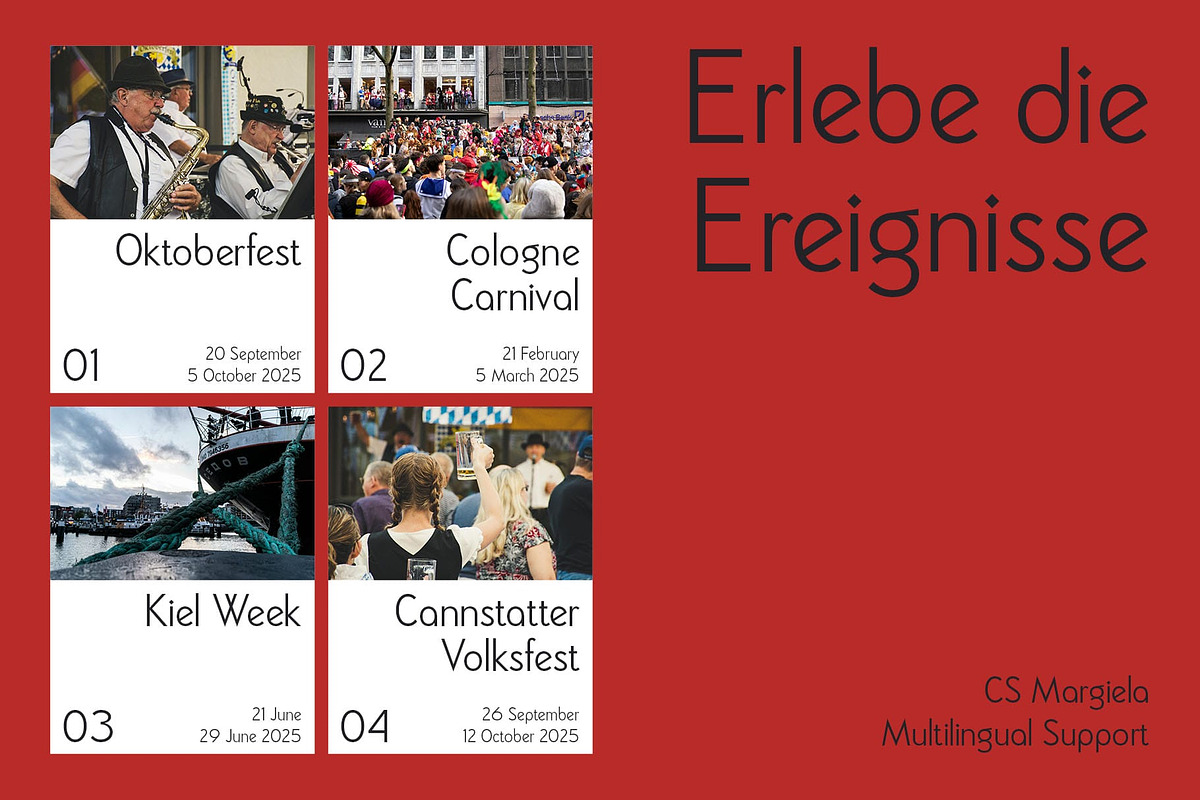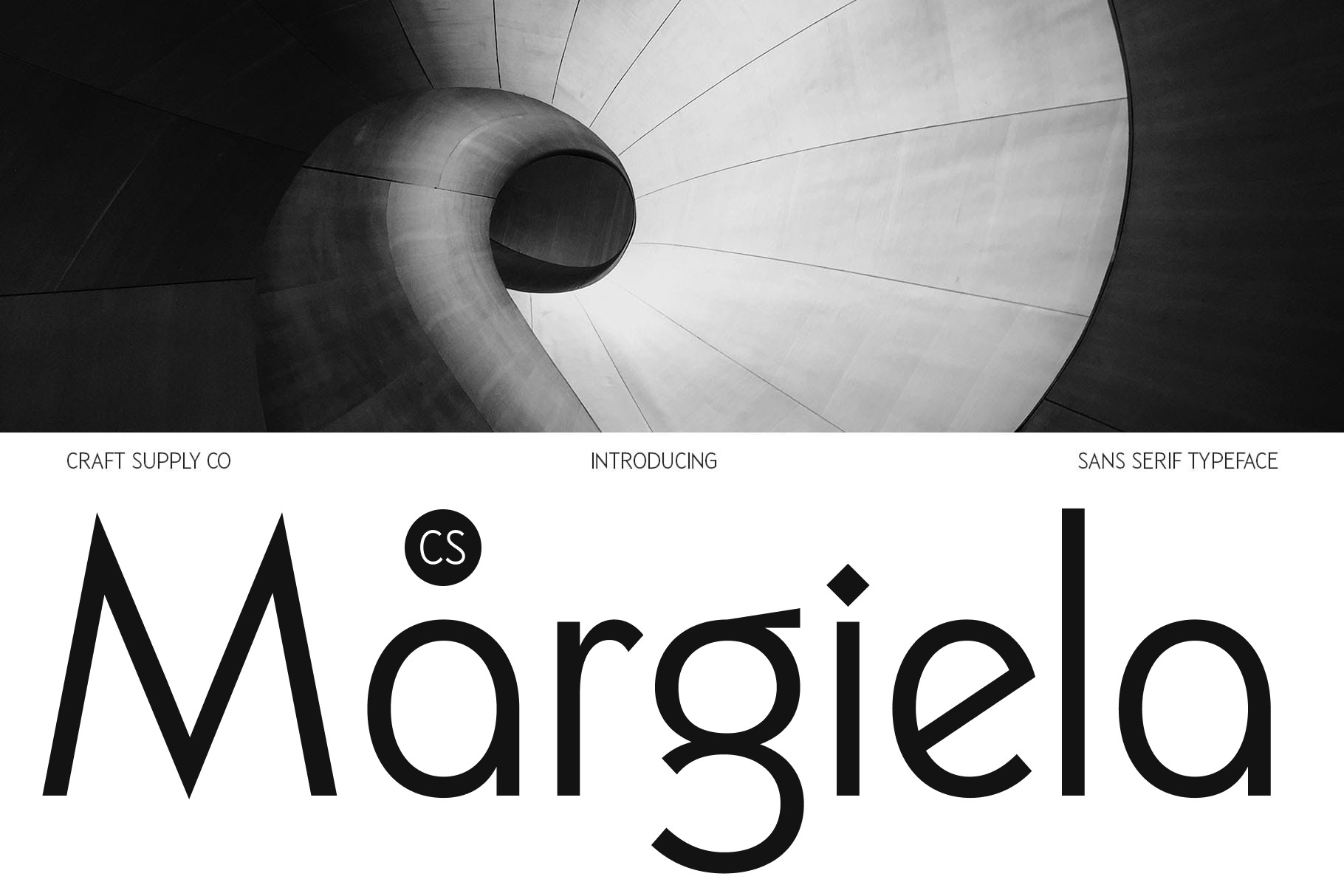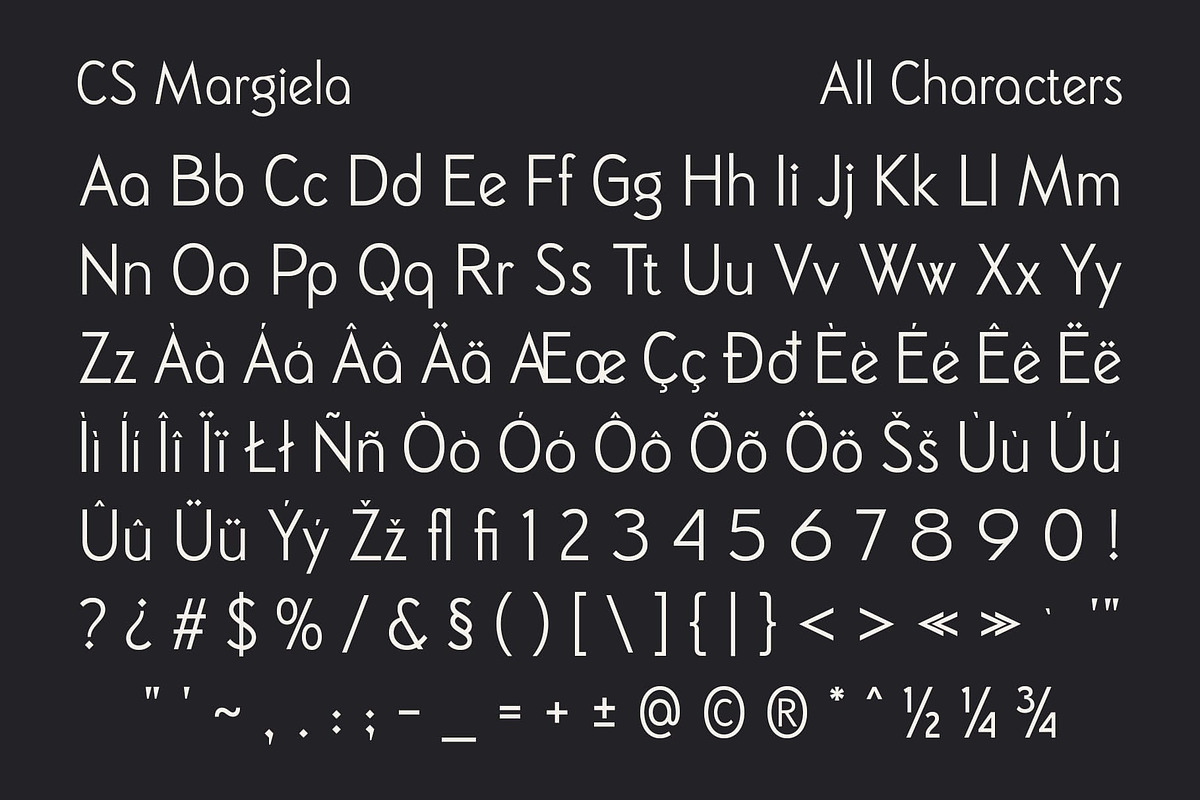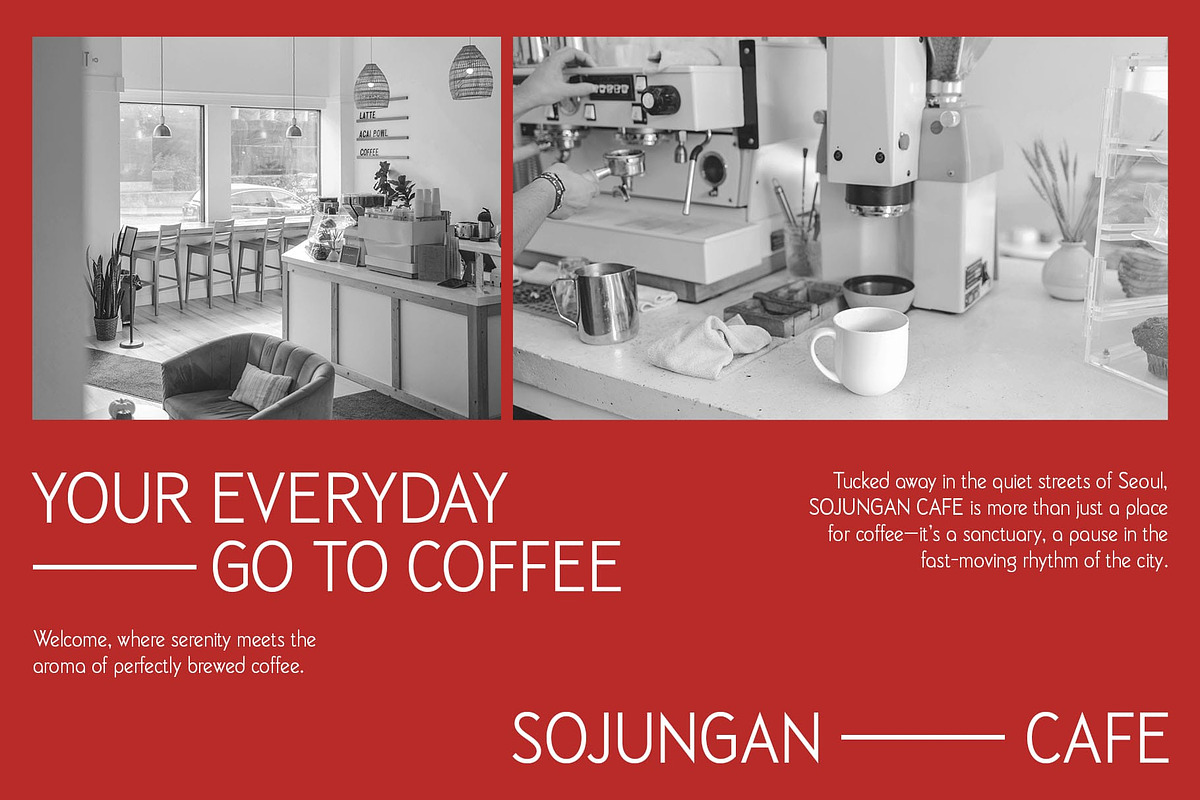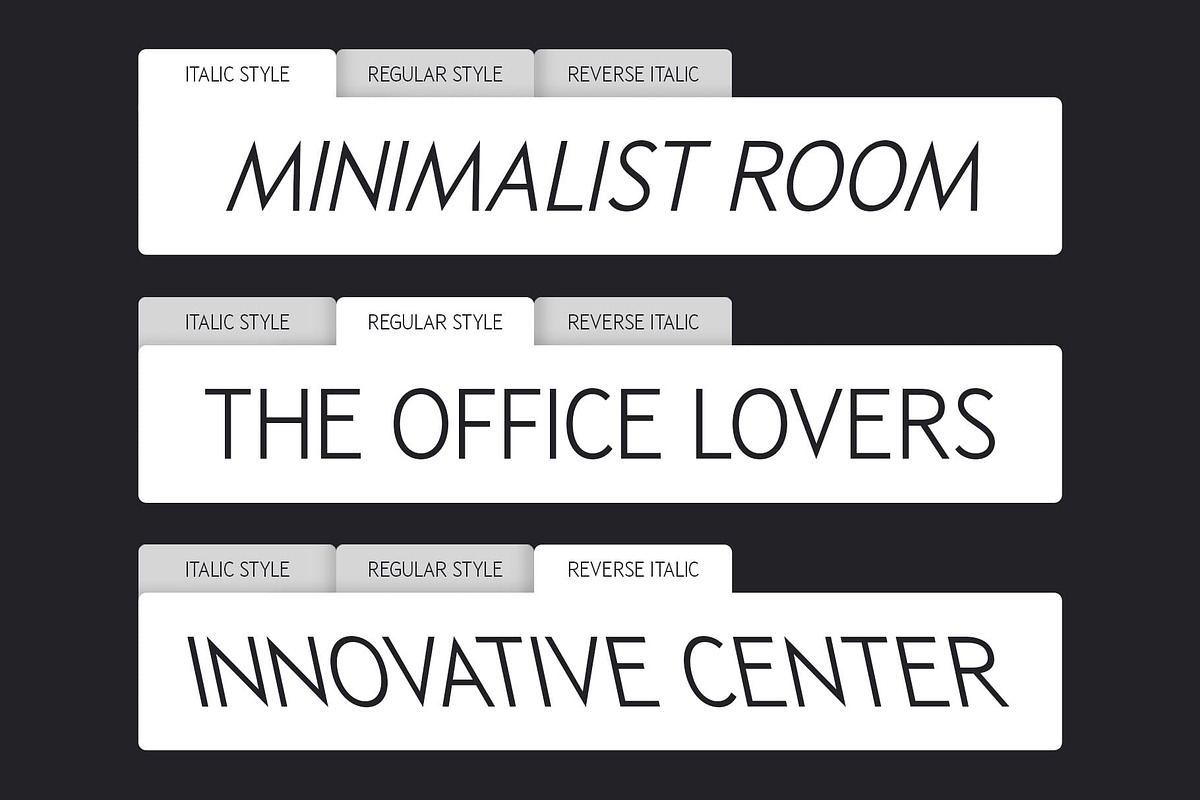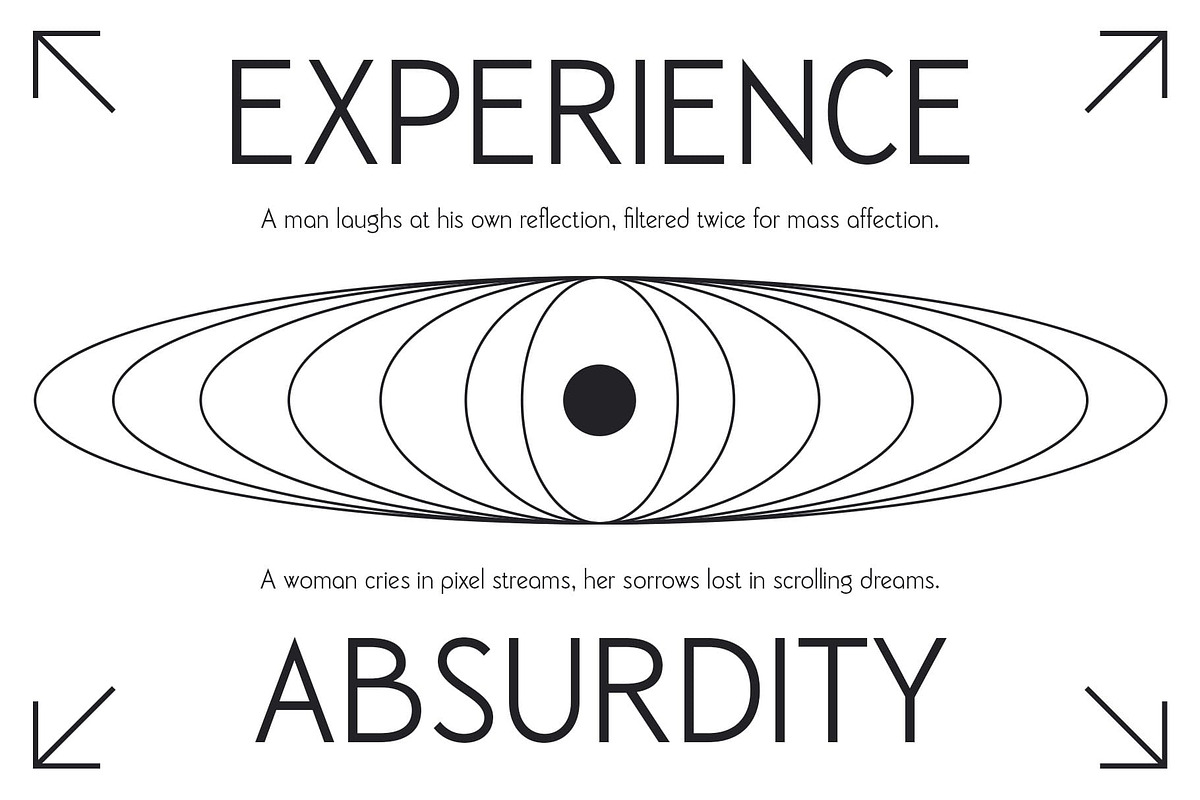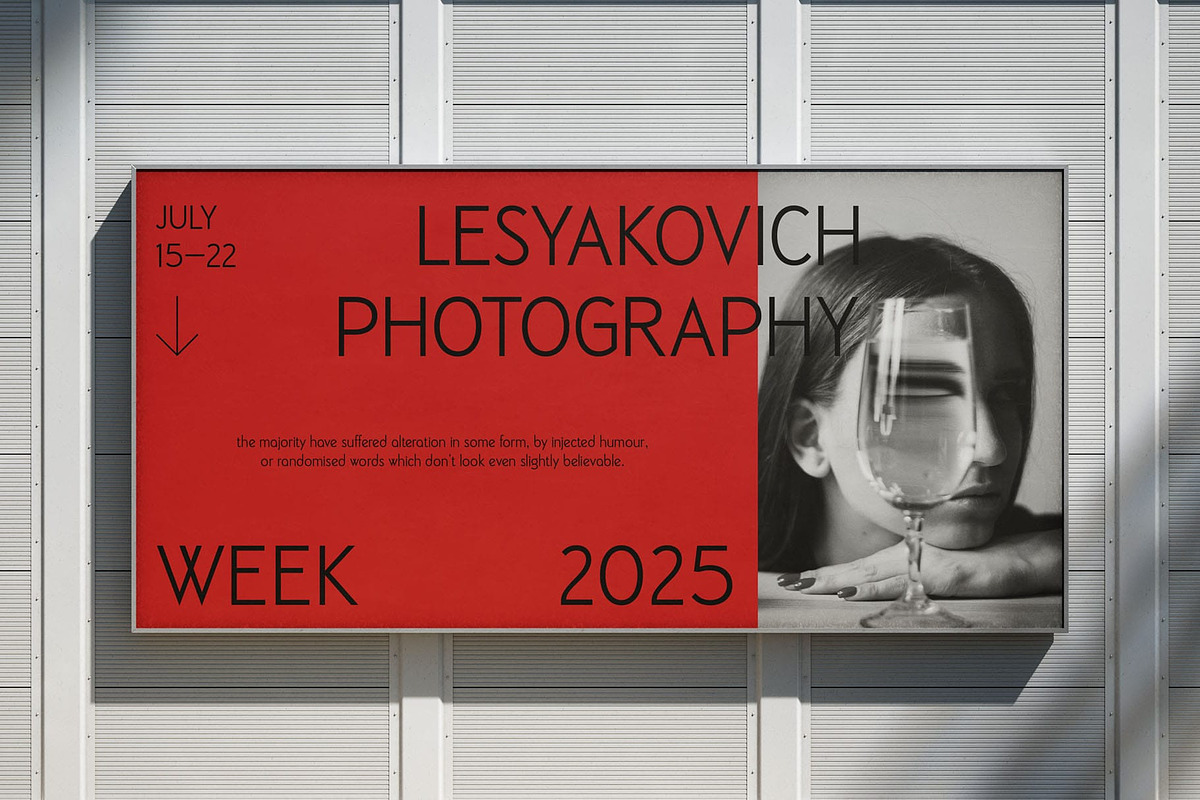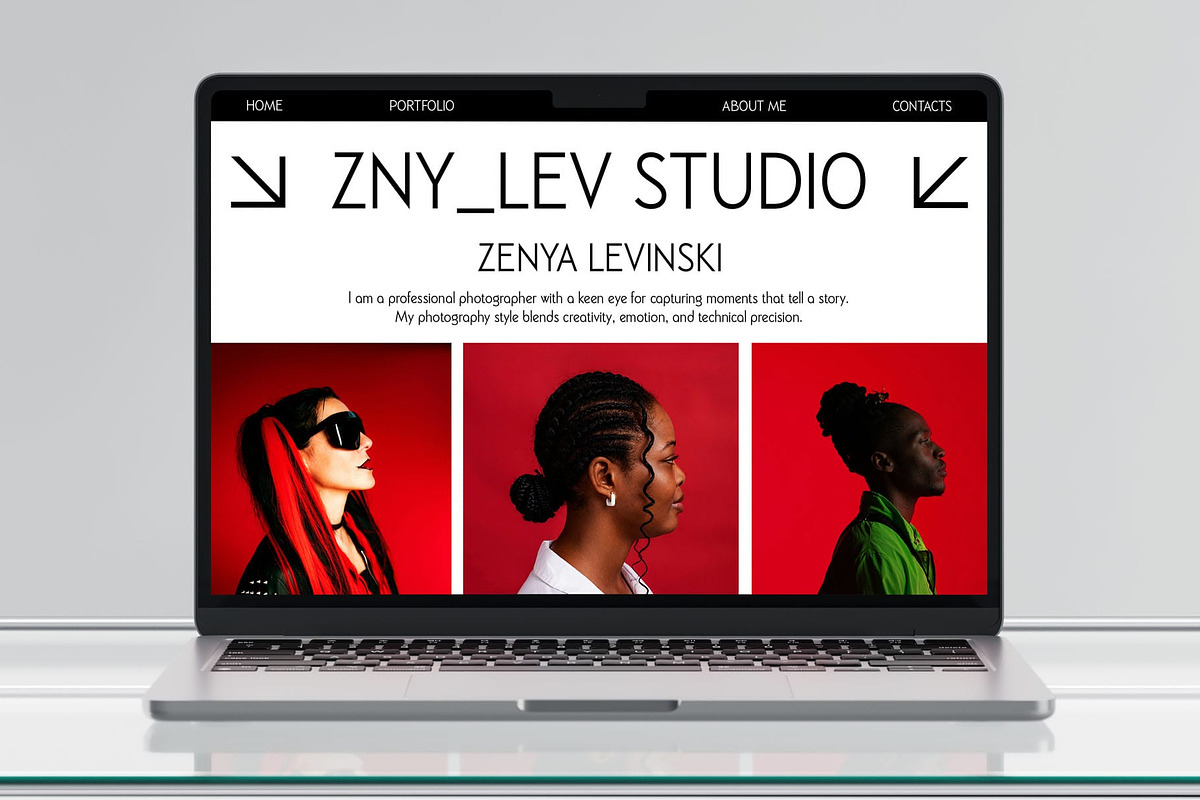
CS Margiela – Contemporary Font
CS Margiela – Contemporary Font: Precision Meets Modern Simplicity
A Sleek and Modern Sans-Serif CS Margiela is a contemporary sans-serif font designed with minimalist precision. Its geometric structure, clean lines, and balanced letterforms create a sophisticated yet approachable aesthetic. Ideal for branding, corporate identity, editorial layouts, and high-end digital applications, this font provides a polished and professional touch to any design.
Balanced Proportions for Clarity and Readability With its well-proportioned characters and refined details, CS Margiela ensures optimal readability across various mediums. The bold yet streamlined appearance makes it highly effective in both large-scale headlines and smaller body text, allowing for seamless adaptability in print and web formats.
Sharp Angles Meet Smooth Curves This font strikes a perfect balance between sharp, angular elements and soft, subtle curves, resulting in a contemporary yet timeless look. The contrast between these design features adds depth and personality, making it an excellent choice for modern branding, high-end advertisements, and sophisticated editorial layouts.
Versatile for Modern Branding and Design CS Margiela’s versatility extends beyond traditional applications. Whether used in tech startups, corporate branding, luxury packaging, or sleek advertising materials, this font adapts effortlessly. It conveys a sense of innovation, trust, and forward-thinking professionalism, making it the perfect typeface for brands that value modernity and refinement.